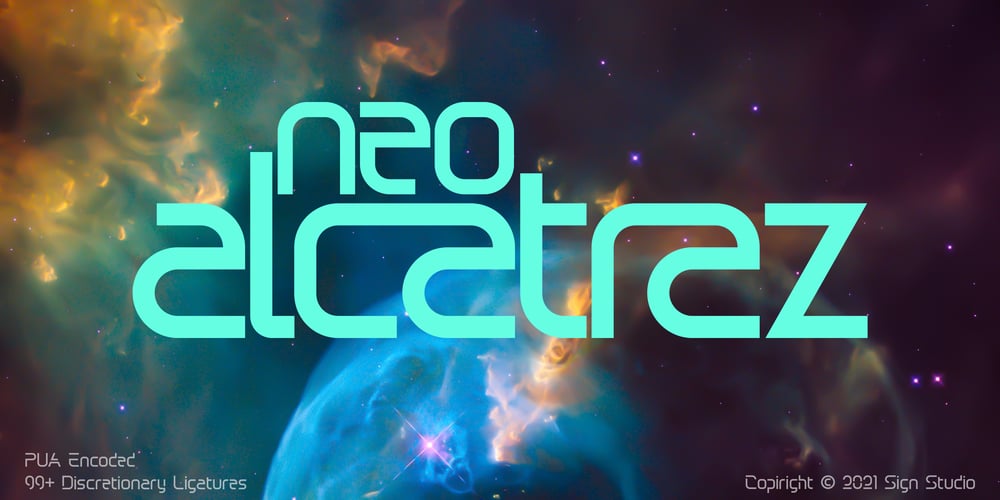
Neo Alcatraz Font Family was designed by Sugi Yanto and published by Sign Studio. Neo Alcatraz contains 1 styles and family package options. Neo Alcatraz will help you to create futuristic and sporty designs. Perfect for branding, posters, book covers, magazines, trademarks, landing pages, mobile apps and more. This font has a simple yet strong form in its character. Minimalism, futuristic, sporty, that’s the theme of Neo Alcatraz.